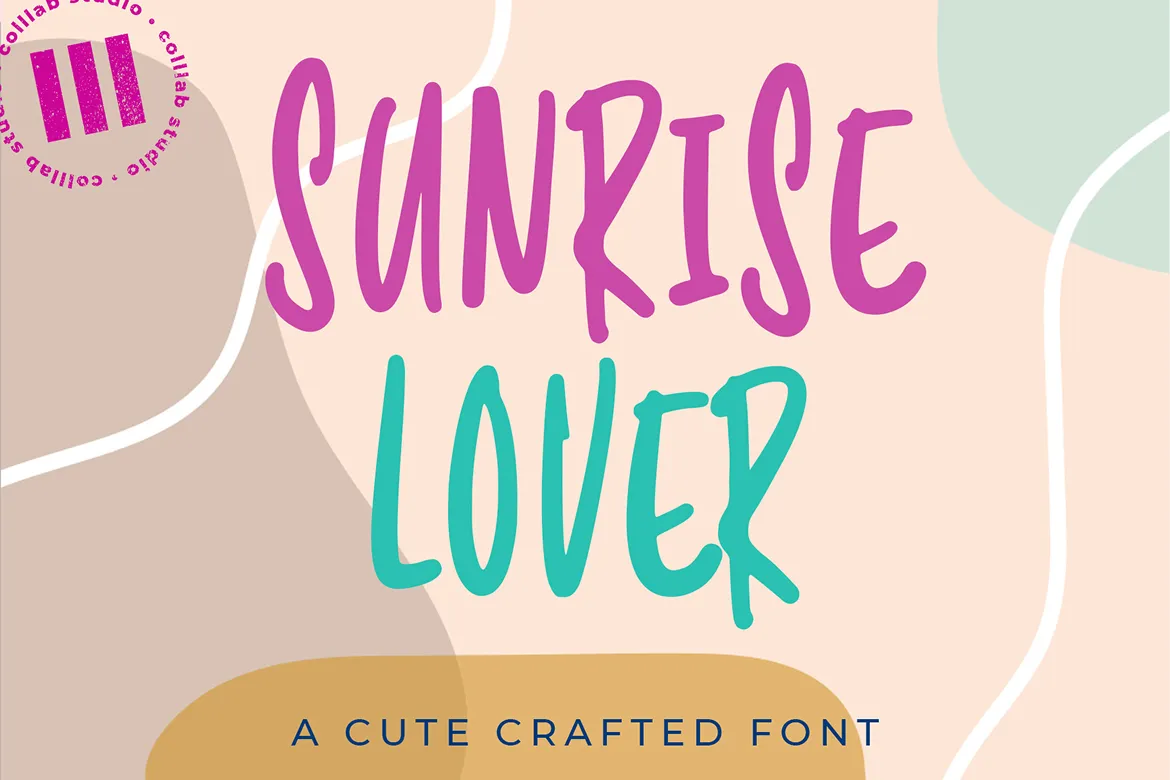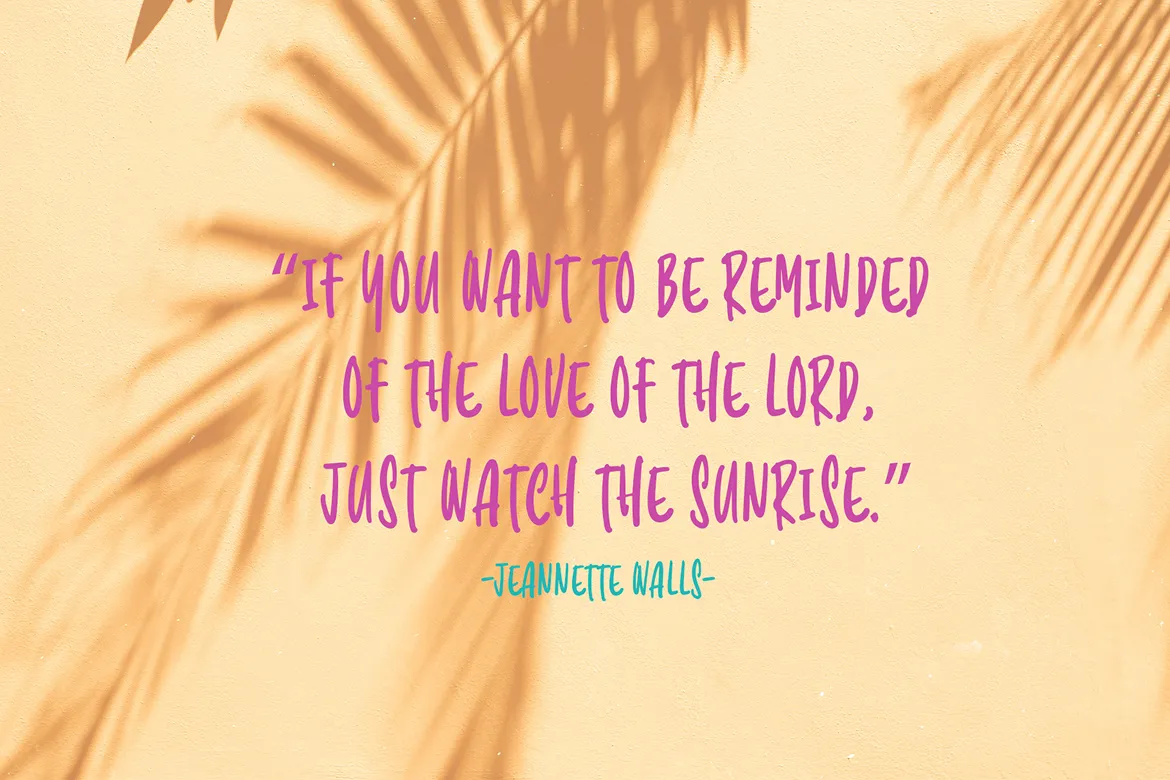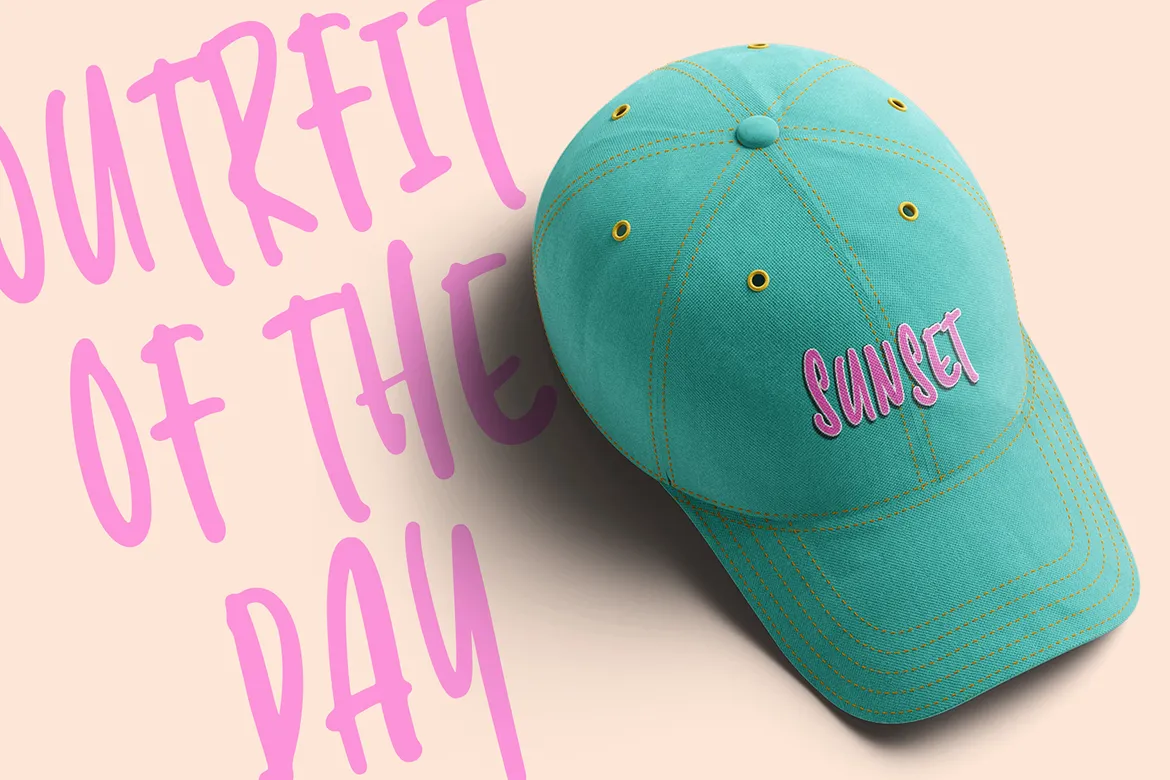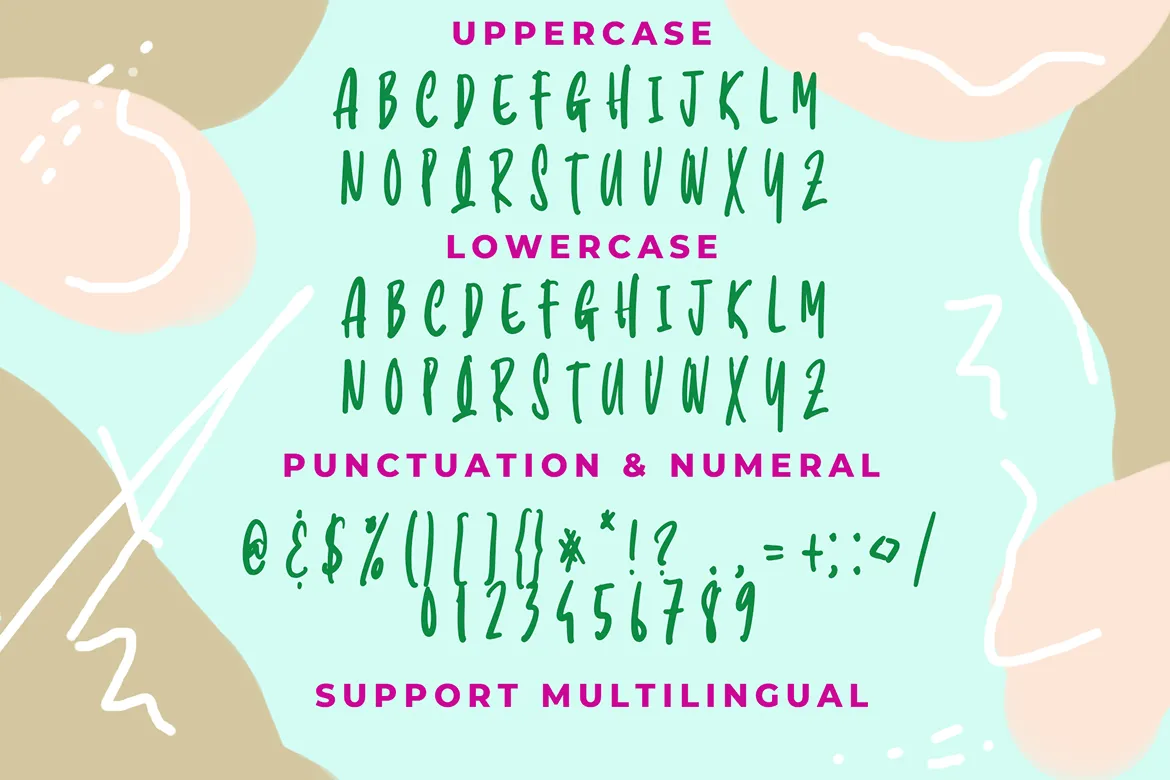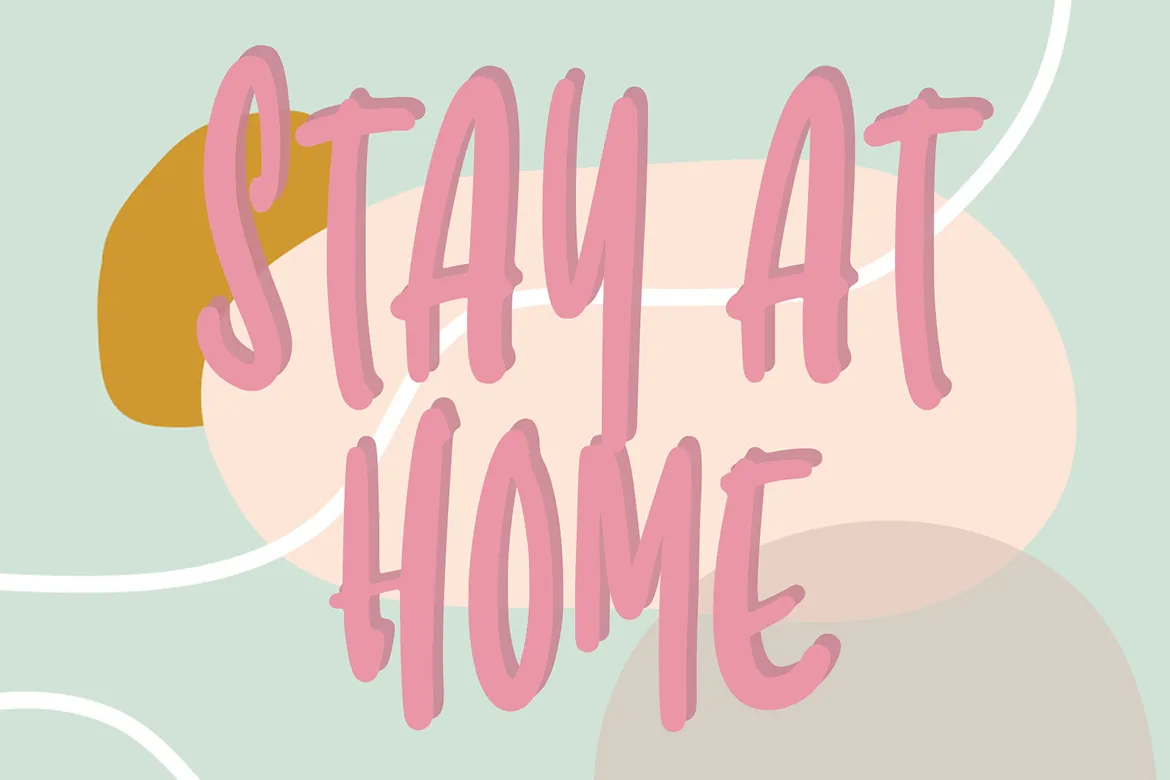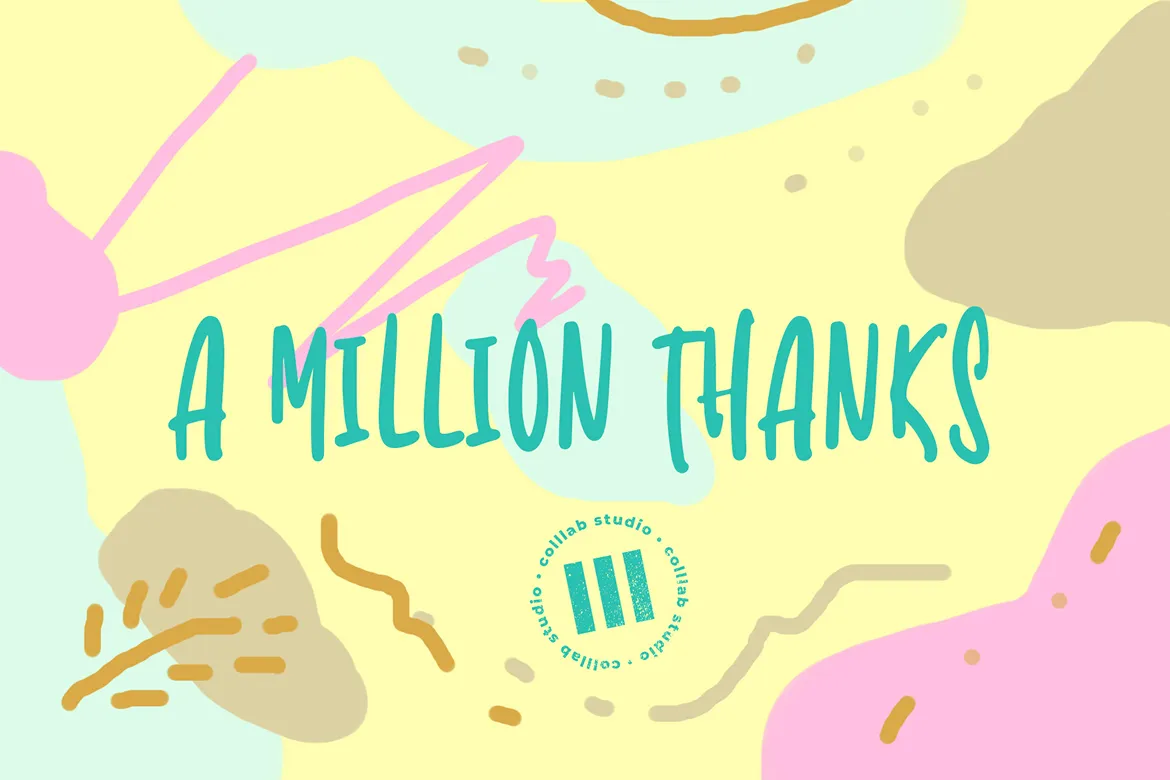
Sunrise Lover is a delightful modern handwritten font that radiates warmth and elegance. With its smooth curves and cute yet stylish details, this typeface is a perfect choice for designers who want to add a personal, heartfelt touch to their projects. It works beautifully on wedding invitations, thank you cards, quotes, greeting cards, logos, and branding designs.
The design of Sunrise Lover is inspired by the gentle beauty of early morning light—soft, calming, and full of fresh beginnings. Each character captures a sense of joy and tenderness, making it perfect for romantic themes, feminine designs, and projects that seek to connect emotionally with the audience.
Complete uppercase & lowercase characters
Numbers & punctuation
Multilingual support for extended usability